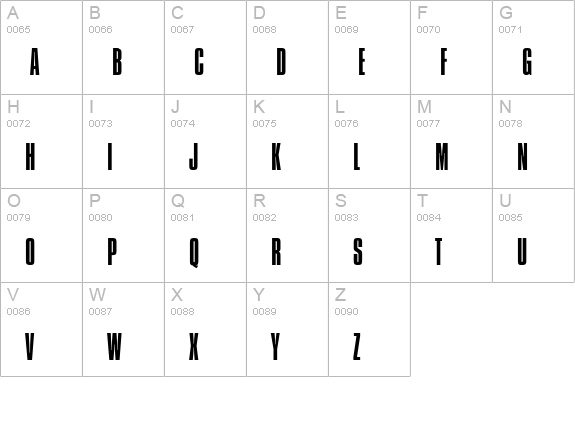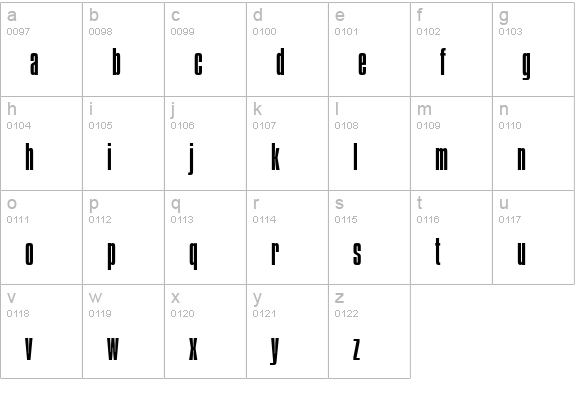
Compressed-Light-Regular Font Details
Compressed-Light-Regular is a refined, elegant, condensed-width variant in the Compressed typeface family \xE2\x80\x94 well suited to elegant body text, refined sub-headings, and luxury branding.
Compressed-Light-Regular is a sleek and modern font that is perfect for conveying a sense of sophistication and professionalism in your designs. With its condensed letterforms and clean lines, this typeface exudes a contemporary elegance that is sure to make a statement. Whether you're working on branding materials, editorial layouts, or web design, Compressed-Light-Regular will add a touch of refinement to your projects. The best part? Compressed-Light-Regular is available for free download at FontsMarket.com! This means you can easily access this stylish font and incorporate it into your creative work without any cost. Don't miss out on this opportunity to enhance your designs with the timeless appeal of Compressed-Light-Regular. Download it today and elevate your typography game to a whole new level.